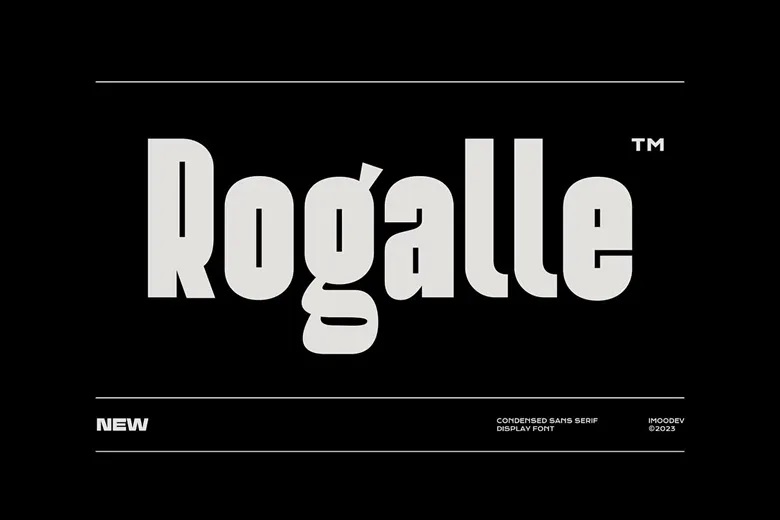
Rogalle Font
Rogalle Sans Display Font is a sleek, slightly curvilinear design that can bring charm and elegance into every letter and, therefore, into your project. A font that can be used in both capital and small capital letters and can be used in a variety of projects including the use of display fonts for titles, logos, invitation, branding, book cover designs, magazine layout, card designs, packaging, product mockup, on mugs, posters, labels, editorials, art deco styles and any type of advertising.
Rogalle Sans Serif Font